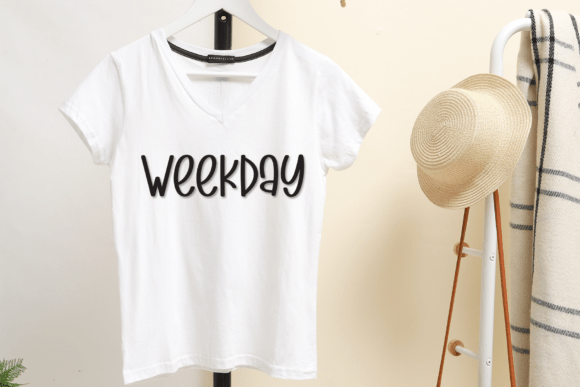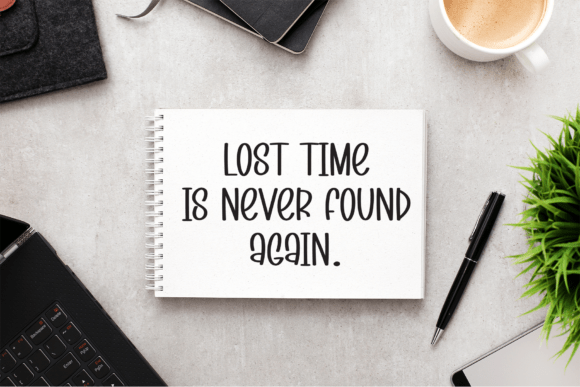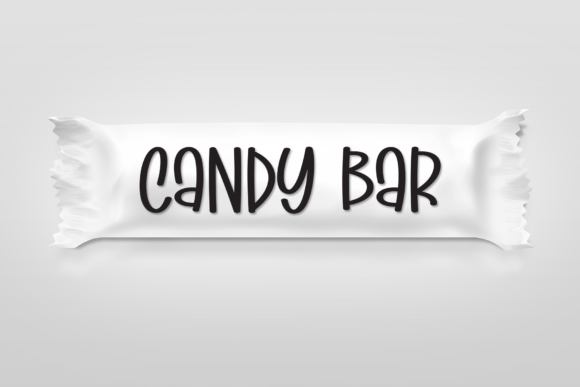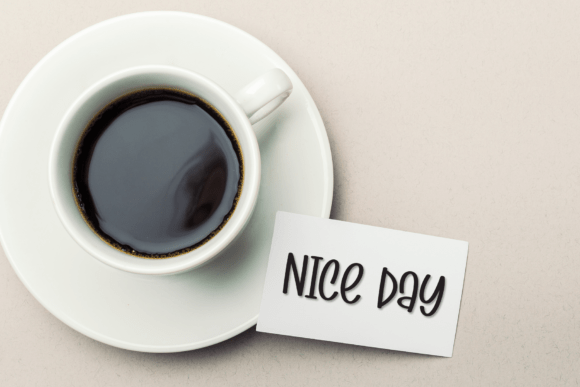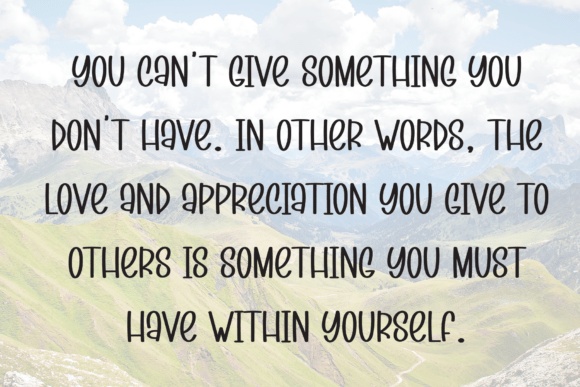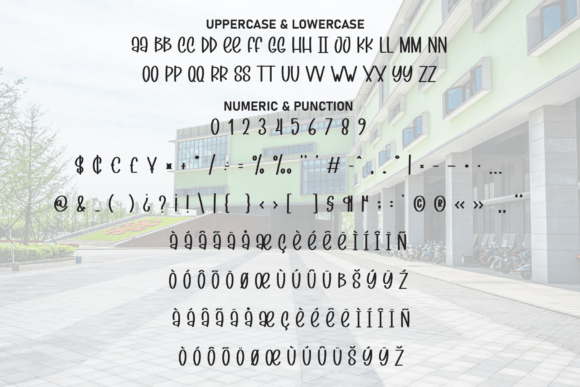
Introducing Boarding School Font: The Perfect Blend of Modern Simplicity and Playful Charm
In the world of typography, fonts play a crucial role in conveying the tone and personality of a brand or design. When it comes to creating a lasting impression, the right font can make all the difference. If you’re a designer or crafter looking for a font that exudes a sense of modern simplicity and playful charm, look no further than Boarding School Font. In this article, we’ll take a closer look at this casual display font and explore its features, benefits, and uses.
What is Boarding School Font?
Boarding School Font is a carefully crafted display font that blends modern simplicity with a playful, approachable vibe. Its clean shapes, soft edges, and well-balanced letterforms make it an ideal choice for designers and crafters looking for a font that captures the charm of relaxed design while maintaining clarity and style.
Key Features of Boarding School Font
So, what sets Boarding School Font apart from other fonts? Here are some of its key features:
• Clean Shapes: Boarding School Font features clean shapes that are easy on the eyes. Its geometric shapes and simple lines make it perfect for designs that require a modern and minimalist approach.
• Soft Edges: The font’s soft edges add a touch of playfulness and approachability, making it ideal for designs that require a friendly and approachable tone.
• Well-Balanced Letterforms: The font’s letterforms are carefully crafted to ensure that they are well-balanced and visually appealing. This makes it easy to read and understand, even at smaller font sizes.
Benefits of Using Boarding School Font
So, why should you choose Boarding School Font for your next design project? Here are some of the benefits of using this font:
• Versatility: Boarding School Font is a versatile font that can be used for a wide range of design projects, from posters and branding to packaging and social media graphics.
• Readability: The font’s clean shapes and well-balanced letterforms make it easy to read, even at smaller font sizes.
• Personality: Boarding School Font has a unique personality that adds a fresh and friendly touch to any design project.
• Eye-Catching Appeal: The font’s soft edges and clean shapes make it visually appealing and eye-catching.
Use Cases for Boarding School Font
So, what are some use cases for Boarding School Font? Here are a few ideas to get you started:
• Posters: Use Boarding School Font to create eye-catching posters that grab attention and convey a message.
• Branding: The font’s playful and approachable vibe makes it perfect for branding projects that require a friendly and modern tone.
• Packaging: Add a fresh and friendly touch to your packaging designs with Boarding School Font.
• Social Media Graphics: Use the font to create engaging social media graphics that stand out from the crowd.
In conclusion, Boarding School Font is a casual display font that blends modern simplicity with a playful, approachable vibe. Its clean shapes, soft edges, and well-balanced letterforms make it an ideal choice for designers and crafters looking for a font that captures the charm of relaxed design while maintaining clarity and style. With its versatility, readability, and personality, Boarding School Font is perfect for a wide range of design projects. So, why not give it a try and see how it can elevate your designs?
Whether you’re a seasoned designer or a crafter just starting out, Boarding School Font is definitely worth checking out. Its unique blend of modern simplicity and playful charm makes it a valuable addition to any design toolkit. So, go ahead and explore the possibilities of Boarding School Font – you never know what amazing designs you’ll come up with!